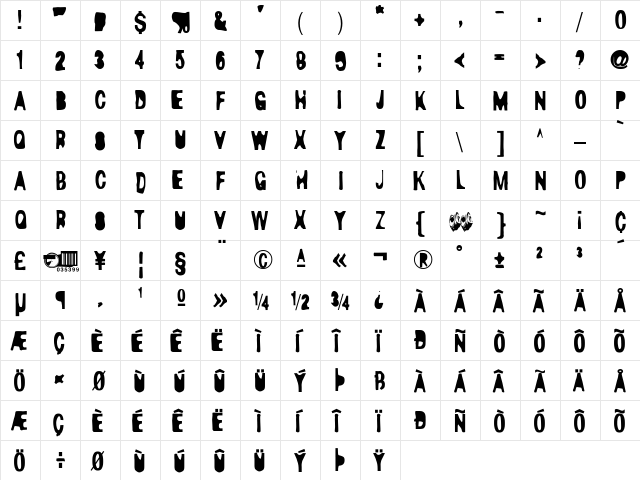
D44Caps-Only Regular
Design Context for D44Caps-Only Typeface
D44Caps-Only is a composed and adaptable typeface that performs quietly and consistently across a wide range of design contexts.